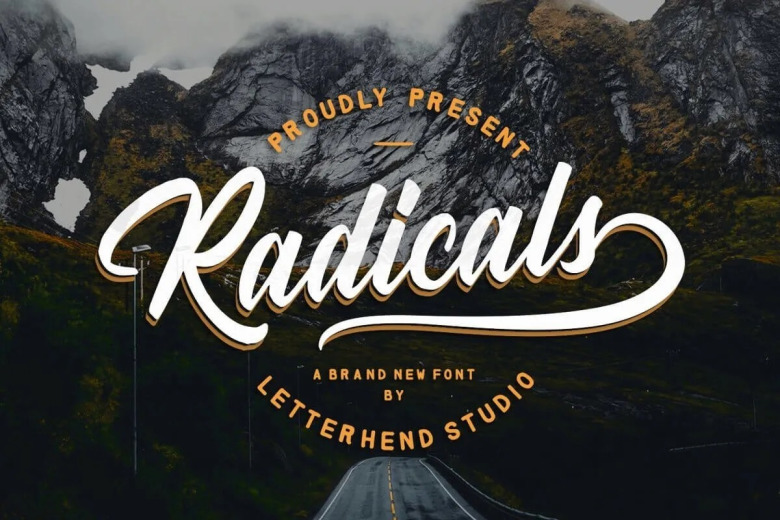
Radicals Font
Radicals is a script calligraphy typeface with rough and vintage look! It is perfect for you who need a typeface for headline, logotype, apparel, invitation, branding, packaging and advertising etc. This typeface is available in uppercase, lowercase letters, punctuation marks, symbols, numerals including stylistic set alternate and ligatures as well to support multilingual.
Radicals Calligraphy Script Font